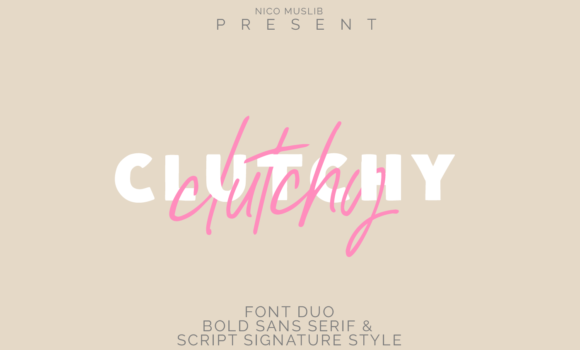
clutchy
Clutchy Font – Free Download Introduction to Clutchy Font Clutchy is a beautiful duo font (Script & Sans Serif). 📸 Preview Gallery 6 images 📌 Product Name Clutchy Font 👤 Author Nico Muslib 📂 Category Explore ⬇️ Download Clutchy Font